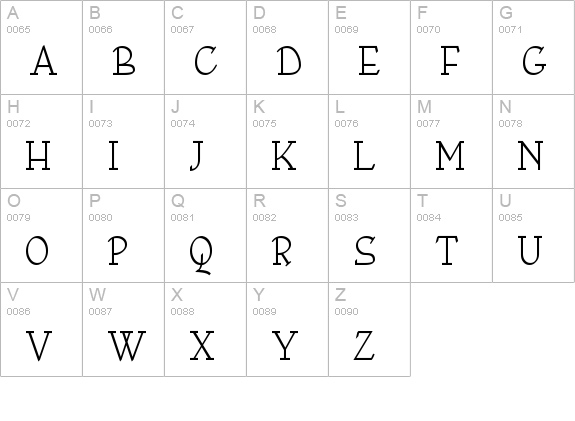
Anarckhie font is a bold and dynamic typeface that exudes a rebellious and edgy vibe. With its sharp angles and striking design, this font is perfect for making a statement in your design projects. Anarckhie font is versatile and can be used for a wide range of applications, from posters to logos to social media graphics. What's even better is that Anarckhie font is completely free to download at FontsMarket.com. This means you can add this unique and eye-catching font to your collection without any cost. Don't miss out on the opportunity to enhance your designs with the striking Anarckhie font - download it now and let your creativity run wild!